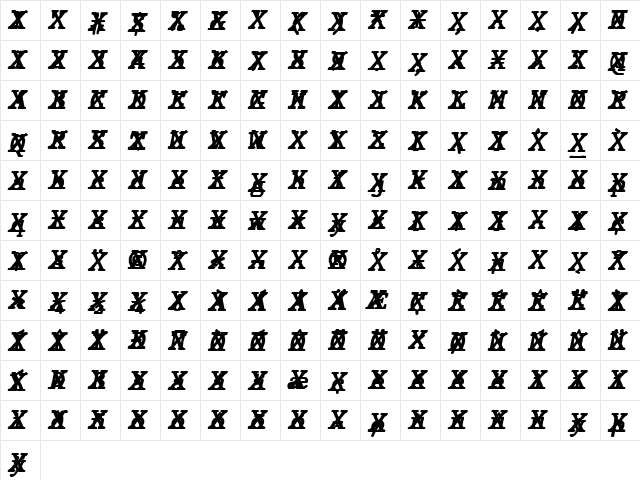
JMH Typewriter mono Cross Italic
Design Context for JMH Typewriter mono Cross Typeface
JMH Typewriter mono Cross uses fixed-width spacing throughout, giving it the structured, systematic character associated with coding environments and technical documentation. The slanted form adds forward momentum and visual energy.
Well-suited to data-driven dashboards, coding tutorials, and any design that wants to reference the world of programming.
Pro Tip: Use JMH Typewriter mono Cross with slightly increased line-height for extended reading — fixed-width spacing can feel dense in longer passages without extra breathing room.